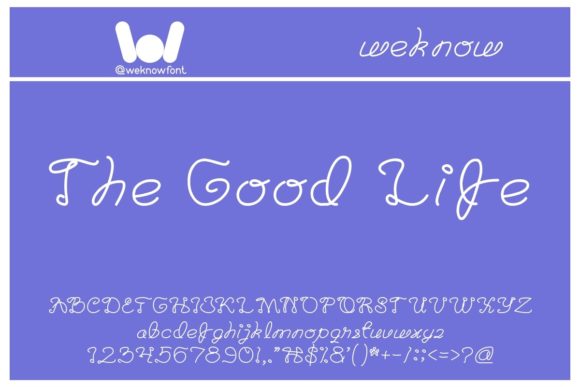
About The Good Life Font
“The Good Life” emerges as an enchanting handwritten font, a script that weaves a tapestry of charm and allure. With its captivating strokes and fluid lines, this font becomes a vessel of enchantment, infusing a touch of romanticism into every design it graces. Imagine it as a key that unlocks a treasure trove of creative possibilities, spanning from heartfelt greeting cards to captivating headlines.
Visualize “The Good Life” as a brush that dances with grace across the canvas, leaving behind letters that exude an aura of romance and allure. Its versatility enhances your projects, transforming them into visual marvels that resonate with a sense of magic and creativity. As you incorporate this font into your designs, you embark on a journey where your concepts evolve into captivating visual narratives.
This versatile script font possesses the power to adapt to a wide spectrum of applications. From heartfelt greeting cards to eye-catching headlines, it adds a touch of romanticism that elevates your project to a realm of enchantment.
In a design landscape where aesthetics evoke emotions and transport audiences, “The Good Life” becomes your tool for crafting designs that capture hearts and leave a lasting impact. Allow its enchanting handwritten strokes to be the artistic threads that weave through your creations, infusing them with a sense of romance and allure. Embrace the allure of “The Good Life” and watch as it transforms your projects into captivating showcases of artistic brilliance, inviting all who engage with them to embark on a journey of enchantment and creativity.